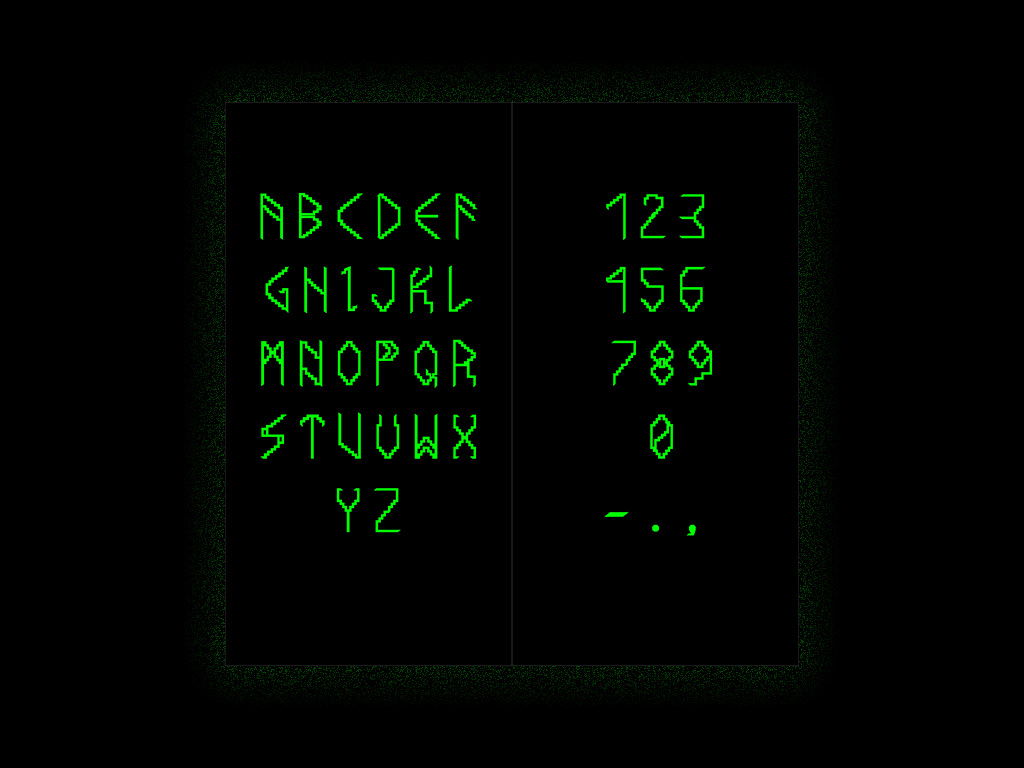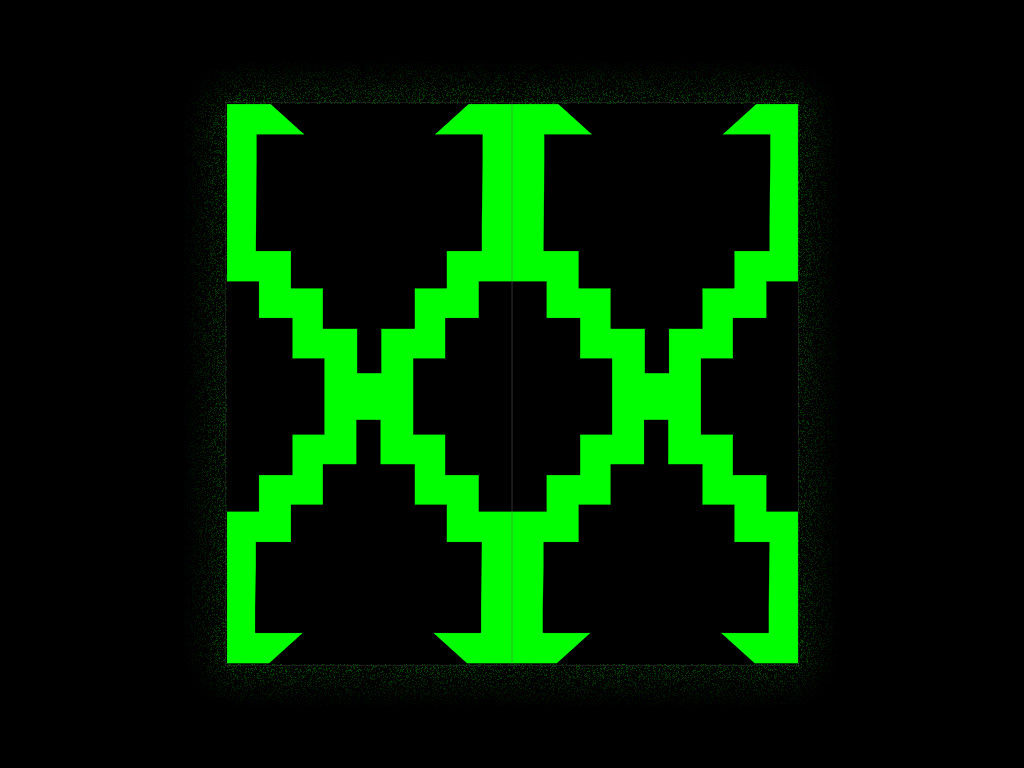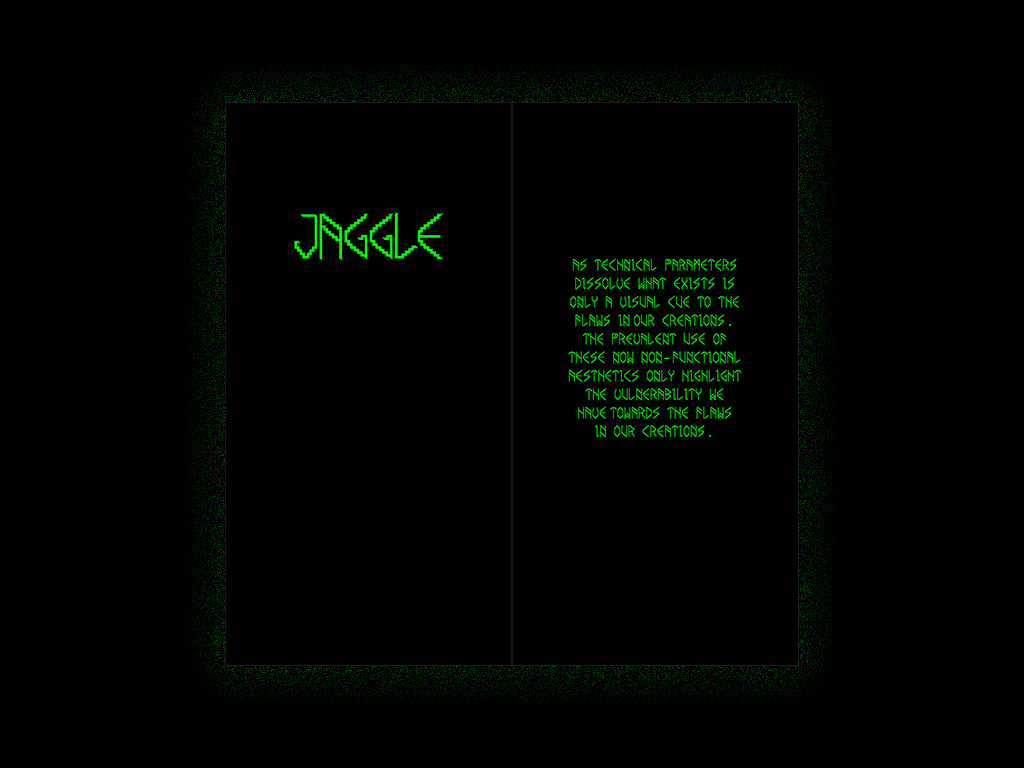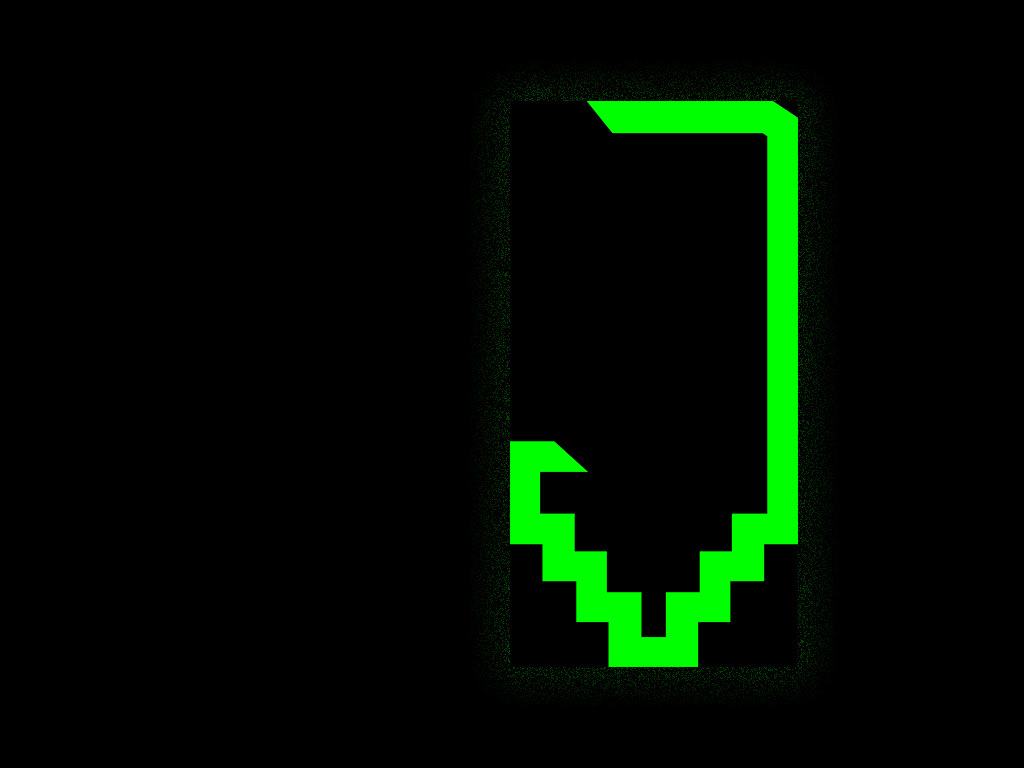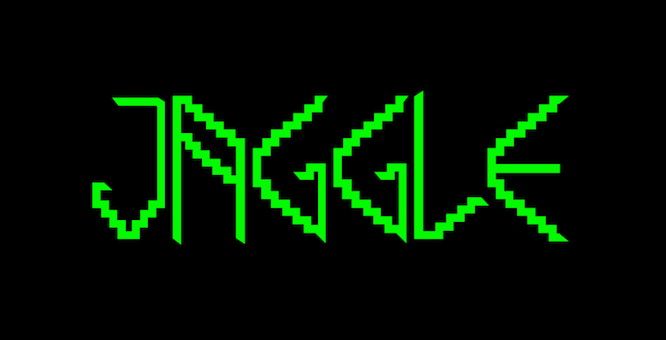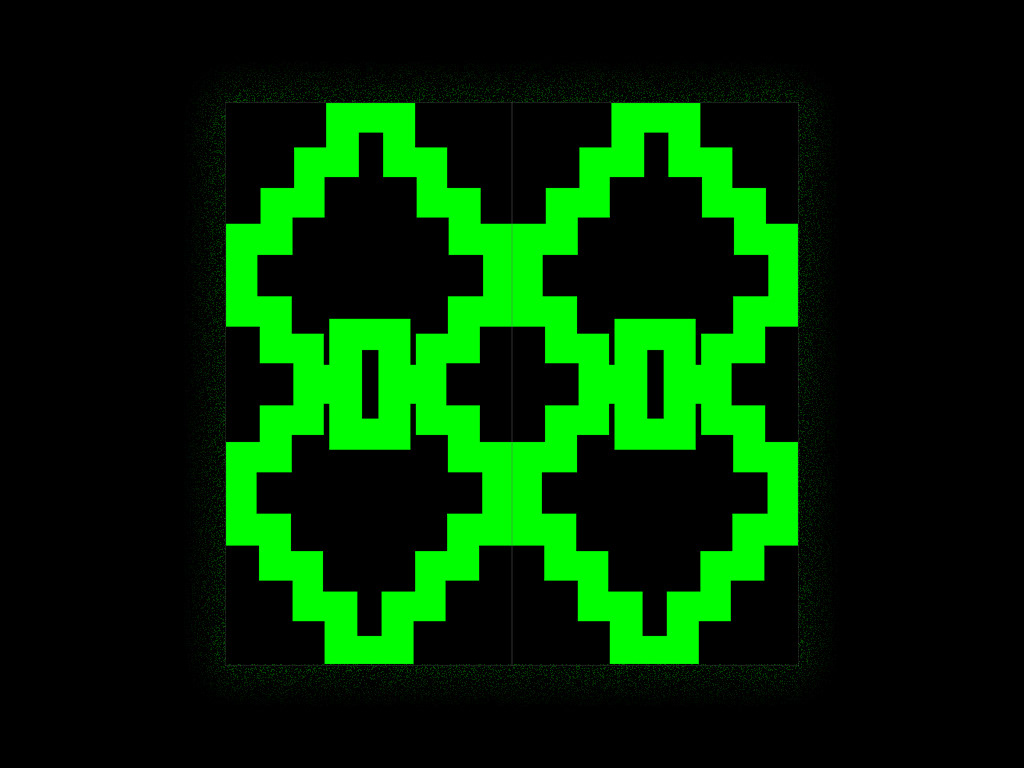
AS TECHNICAL PARAMETERS DISSOLVE WHAT EXISTS IS ONLY A VISUAL CUE TO THE FLAWS IN OUR CREATIONS. THE PREVALENT USE OF THIS NOW NON-FUNCTIONAL AESTHETICS ONLY HIGHLIGHT THE VULNERABILITY WE HAVE TOWARDS THE FLAWS IN OUR CREATIONS.